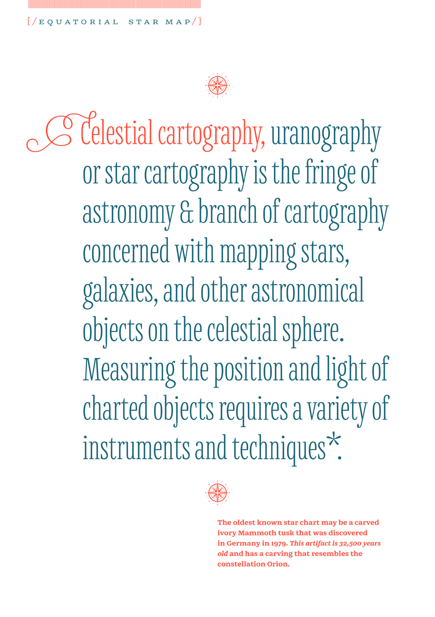
Barbara Bigosińska is a type designer, typographer and illustrator. Her latest typeface (which began as her graduation project from KABK) has just been released by independent type foundry Bold Monday.
Mala is a gorgeous type family designed for cartography and atlases. (when I first saw this face I thought immediately of Charles Darwin's scientific expeditions)... and the adventurous spirit of Christopher Columbus provided inspiration for the design. Barbara writes "The idea of designing the typeface dedicated to use on maps came to me naturally as I have always had an interest in visually complicated matters. Maps, no matter what kind, are definitely complex and structured sources of information and — unlike books, they use the type in a completely different way."
Mala provides a carefully chosen (extensive) number of widths and weights – enough to create a clear difference between certain groups of information and enable clear layering.
Mala has both traditional and contemporary characteristics. Embued with all the personality, charm and warmth of the oldstyle calligraphic genres but with the cleanliness, precision and functionality of a modern font. Mala is a versatile typeface with an extended character set (suitable for multiple languages).
The caps also have a diverse range of swash alternates, the flourishes look like a natural extension of the gesture and are included not only for their playful beauty and visual interest but also for the functional purpose to fill broad spaces, such as oceans or seas. Barbara explains "I have been always a big fan of handmade quality and its — sometimes awkward — uniqueness... Handmade means more freedom. Freedom in the term of typography on the map may be translated into the variety of different styles as well as into the variety of alternative characters withing one style. One of the most beautiful features of the early printed maps that I wanted to bring back into the digital typeface were swashy characters."
Courageous, adventurous, elegant, playful and unique - Mala is stunning work - and I extend my most sincere congratulations to Barbara!